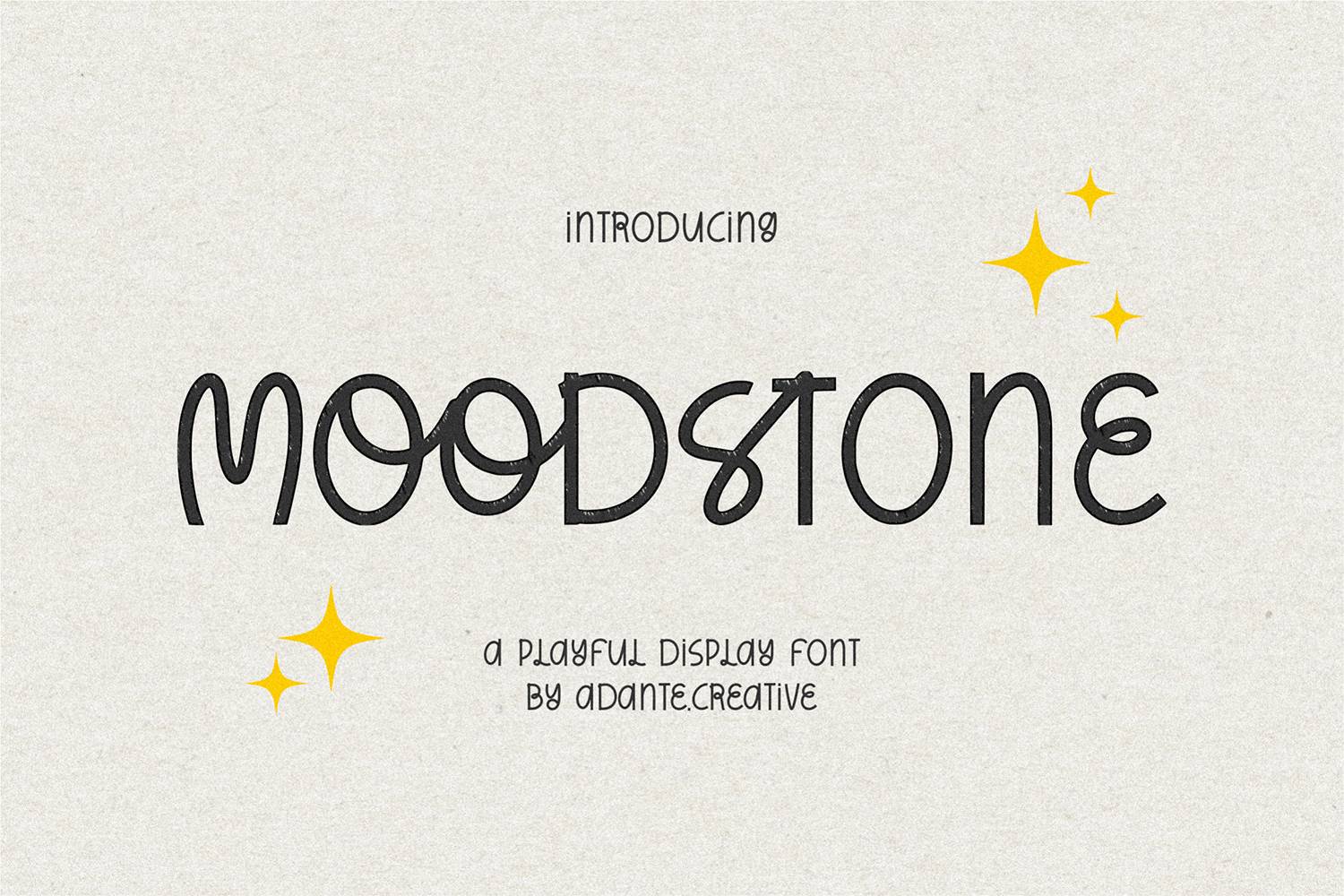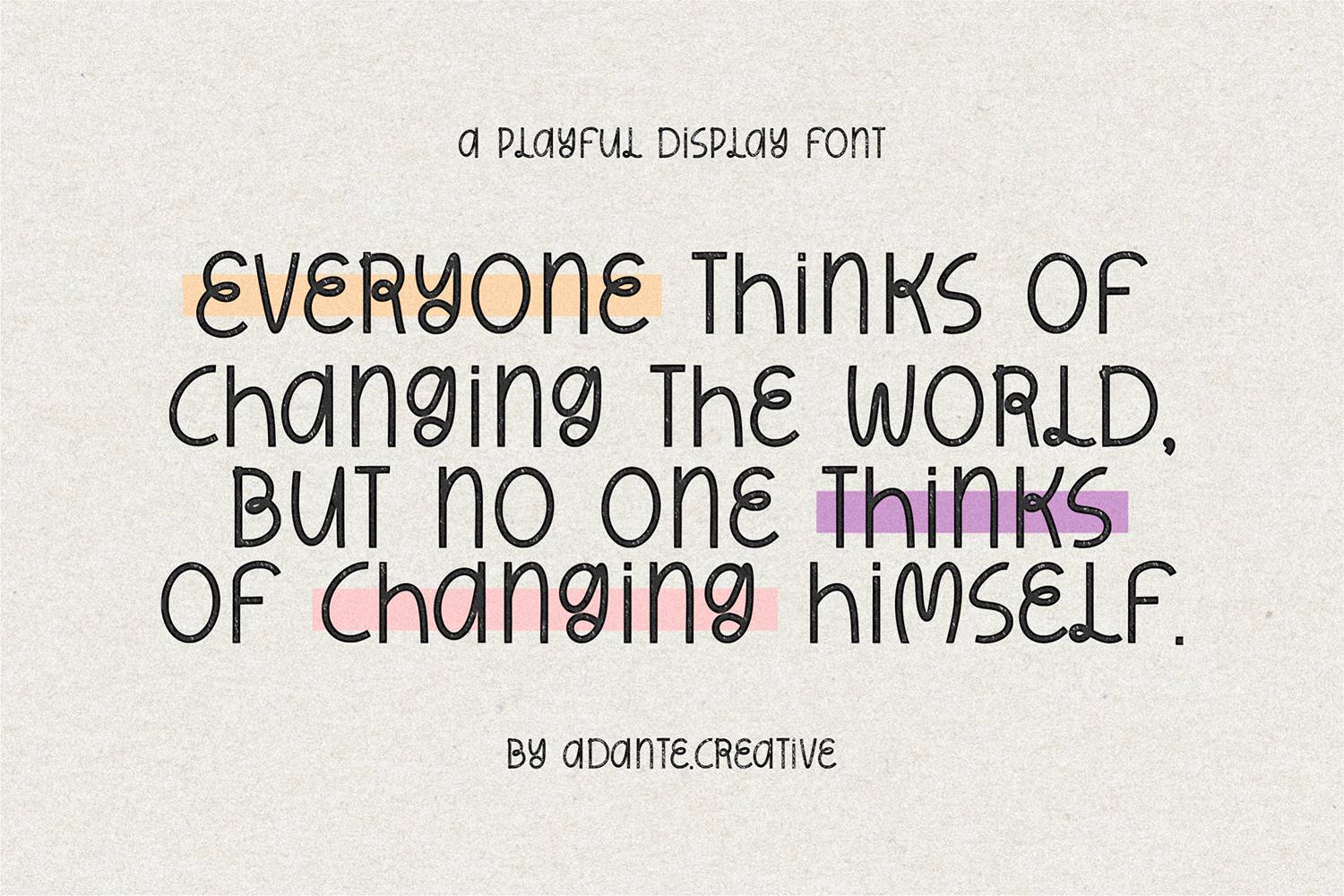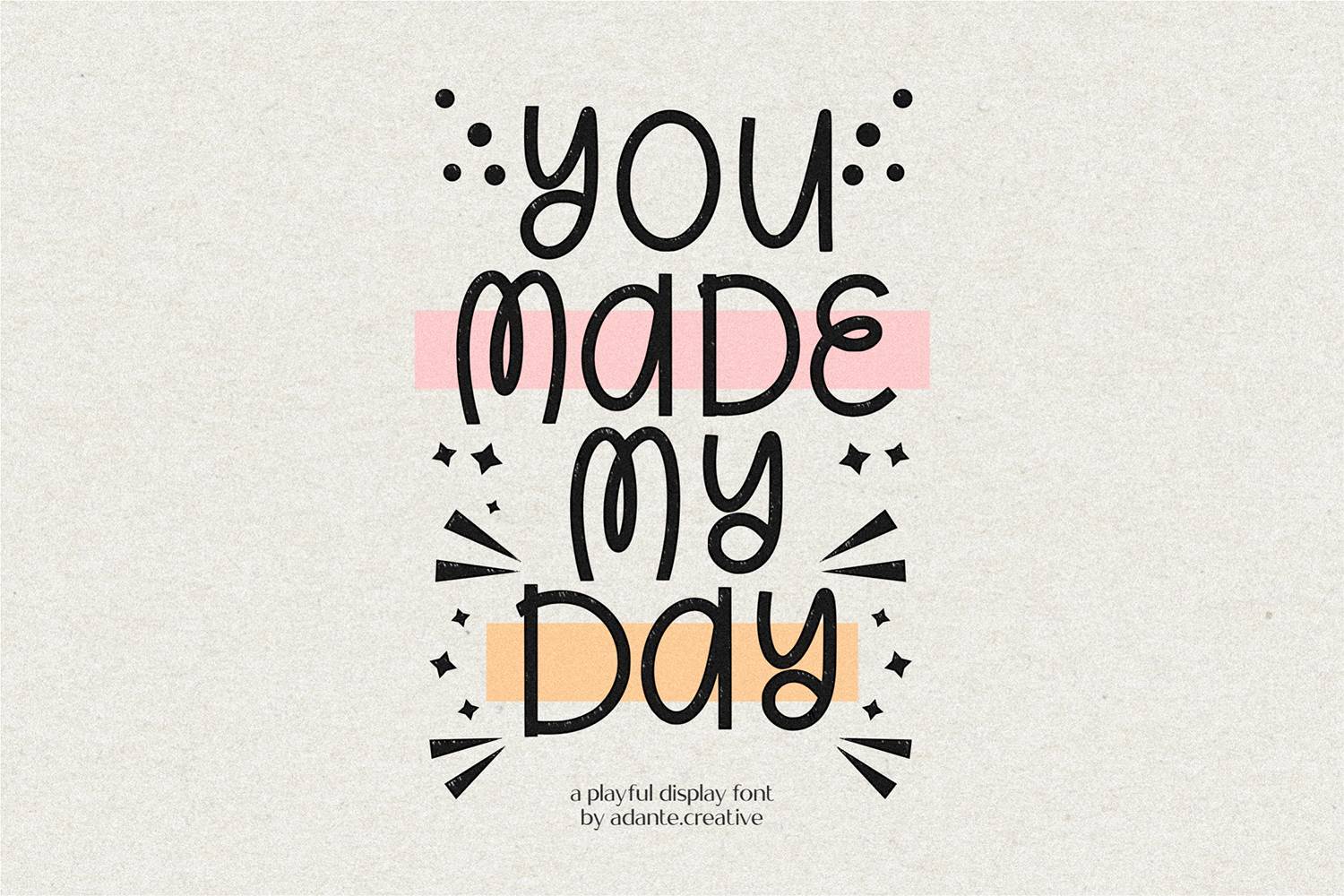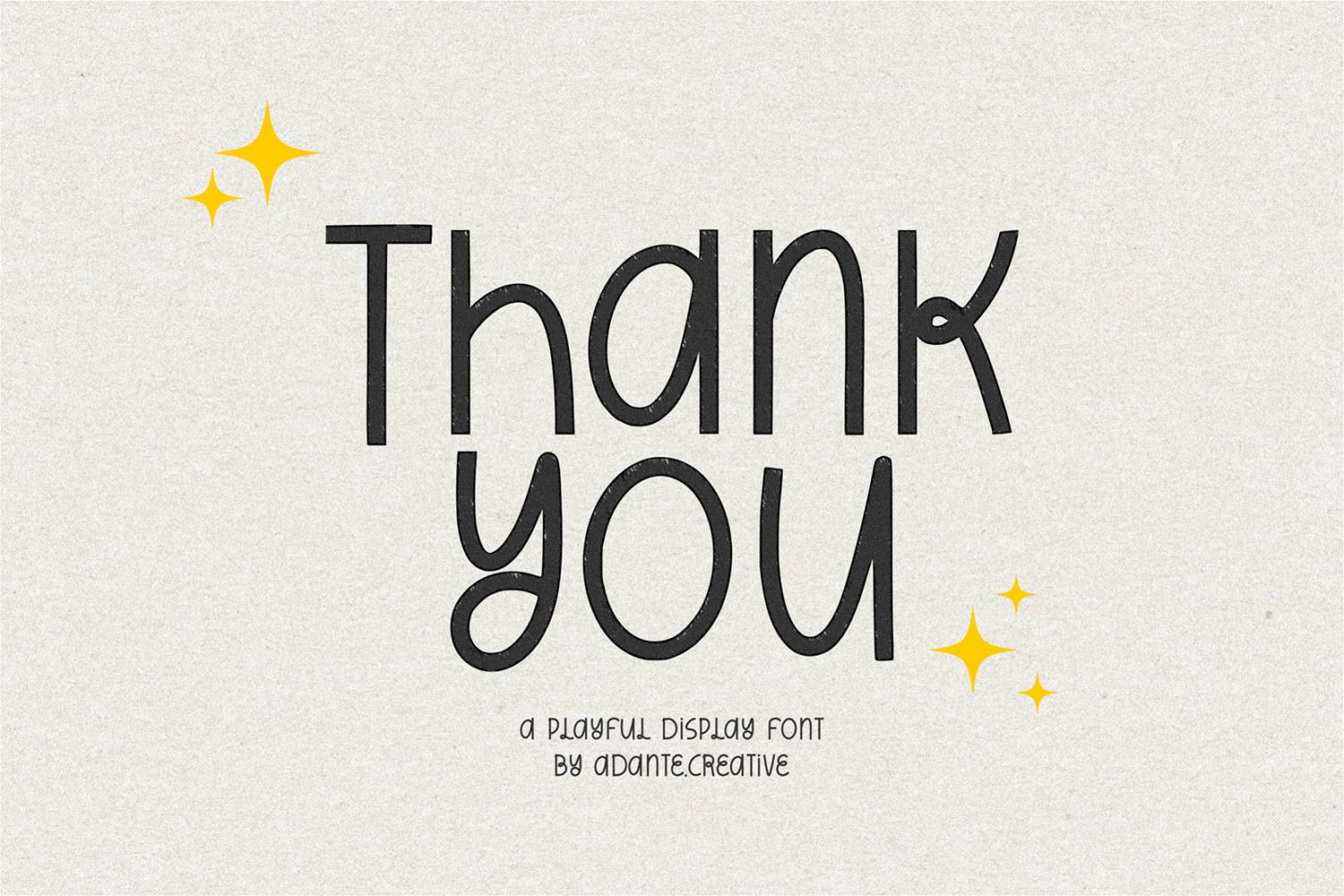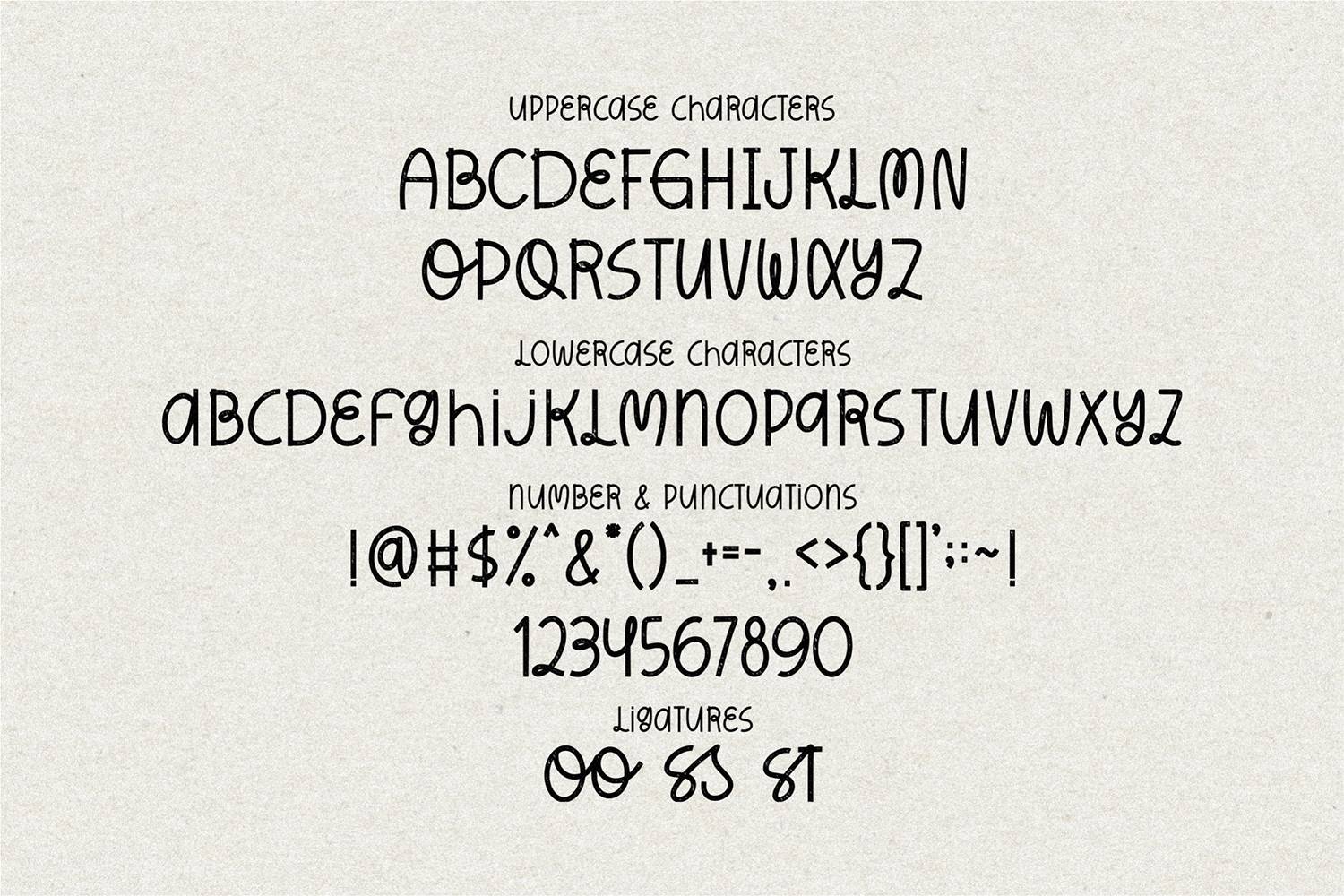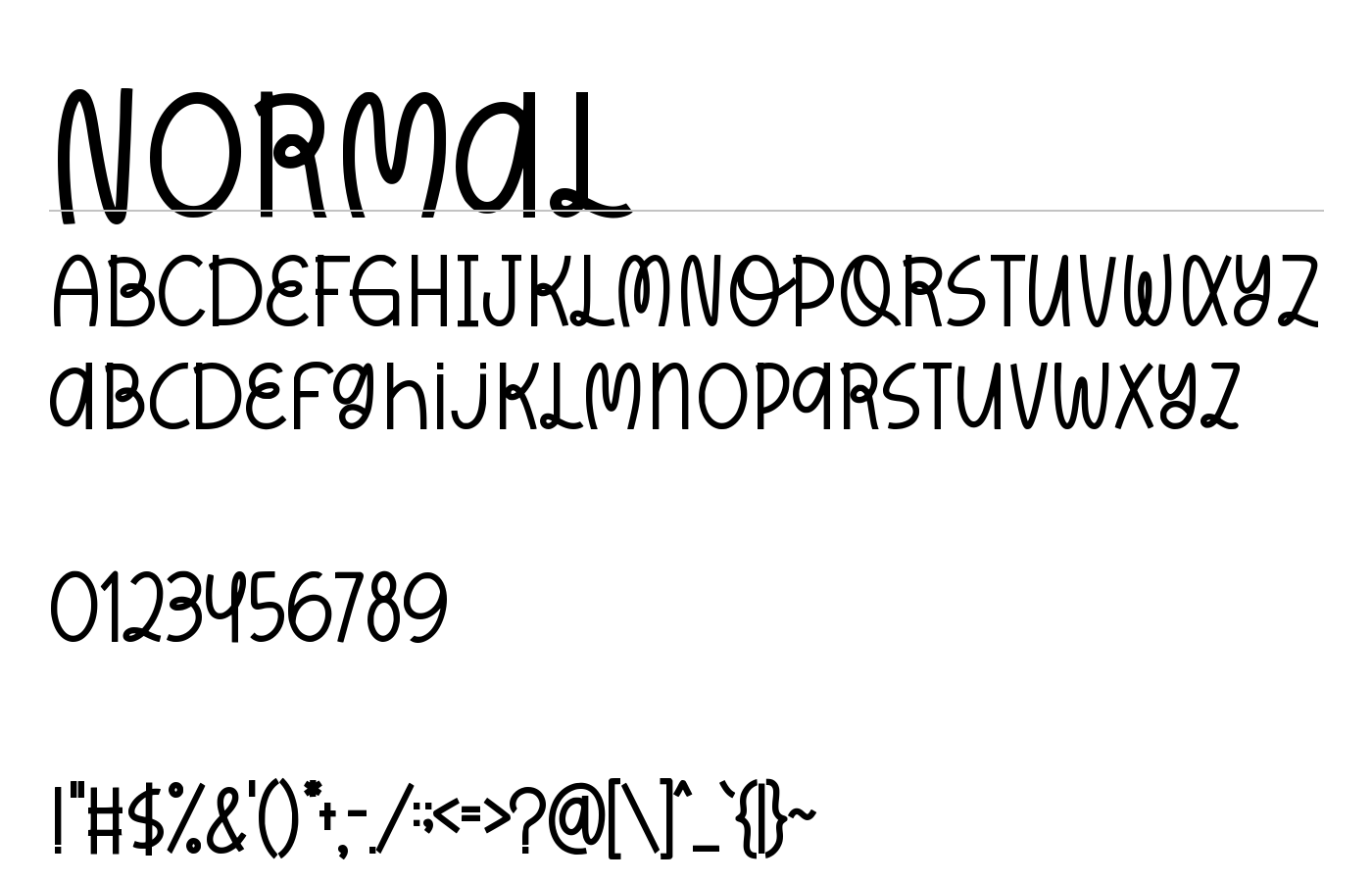
Moodstone is a playful sans serif font with a hand-drawn, quirky character that features irregular, rounded strokes and unique letterforms like looping tails and single-story letters. It has a light weight and normal width with a whimsical, casual feel, making it ideal for fun branding, children’s materials, and creative projects that want a friendly, informal tone. This font works best in headlines, logos, and invitations where a lively, approachable personality is desired.
Moodstone Font
About Moodstone Font